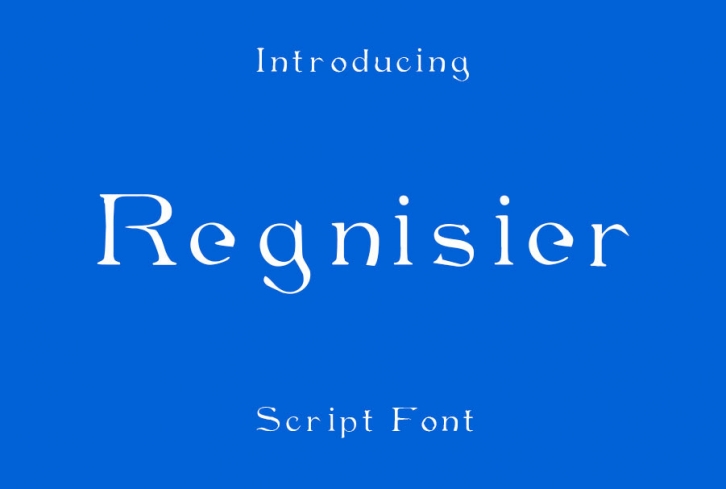
An elegant calligraphy script font. Perfect for making elegant stylish statements – or adding a touch of class to your designs… This script has a multitude of natural-looking ligatures in it – making the font look as close to natural handwriting as possible.